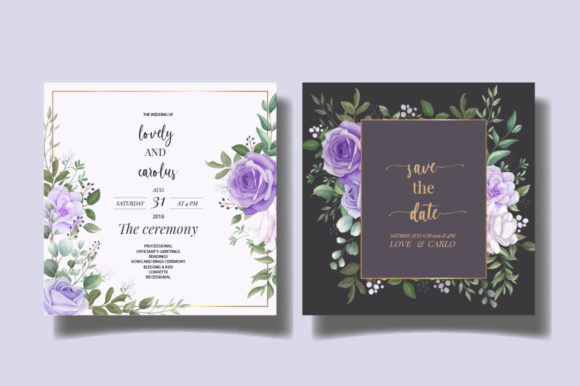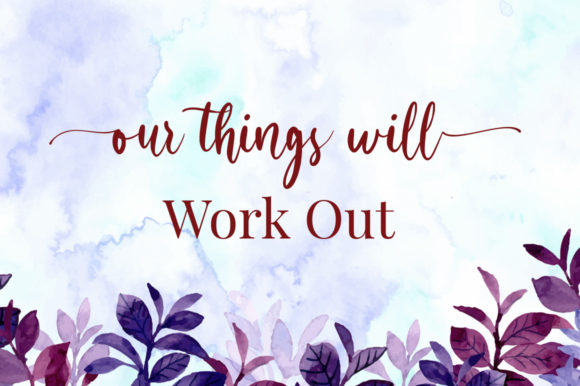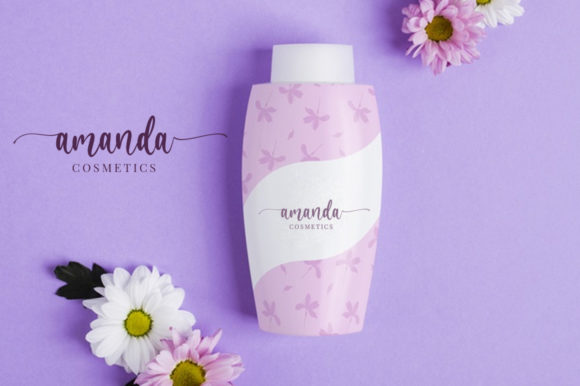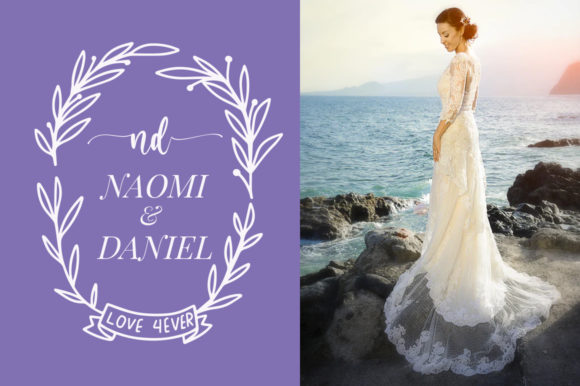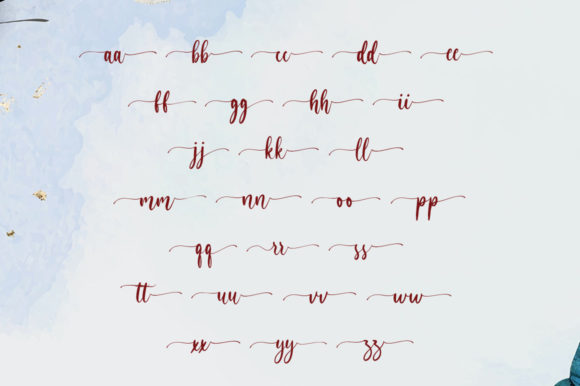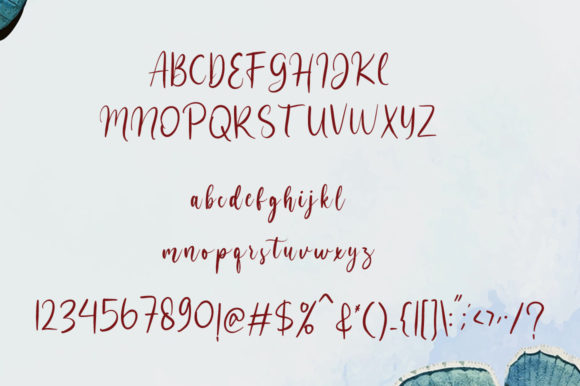
Butterfly is a smooth and elegant handwritten font that adds a touch of sophistication to your designs. With its flowing letterforms and graceful curves, this font exudes a sense of beauty and charm.
The smooth and seamless nature of Butterfly creates a harmonious and polished look. Each letter is carefully crafted to maintain a consistent flow, giving your designs a sense of elegance and refinement. Whether you’re designing invitations, logos, branding materials, or any other creative project, Butterfly can bring a touch of class to your work.
With the inclusion of PUA encoding, Butterfly offers easy access to a wide range of glyphs and swashes. This allows you to add decorative elements, alternative letterforms, and unique flourishes to your designs, further enhancing their visual appeal. You can effortlessly customize and personalize your creations to suit your artistic vision.
Butterfly is versatile and can be used in various design contexts. Its elegance and smoothness make it suitable for both formal and informal projects. From wedding stationery to fashion branding, from quotes to social media graphics, Butterfly adapts well to different styles and themes, adding a sense of sophistication to your designs.
Furthermore, Butterfly’s legibility ensures that your message is effectively communicated. Even with its elegant and decorative elements, the clarity of the letterforms remains intact, making it readable in various sizes and contexts. Your audience will be able to appreciate the beauty of the font while easily understanding the content.
So, embrace the smoothness and elegance of Butterfly and let it inspire your creative ideas. With its PUA encoding, you have access to a wealth of design options and can create stunning and unique designs. Whether you’re designing for personal or professional purposes, Butterfly is a versatile font that will elevate your creations and leave a lasting impression.